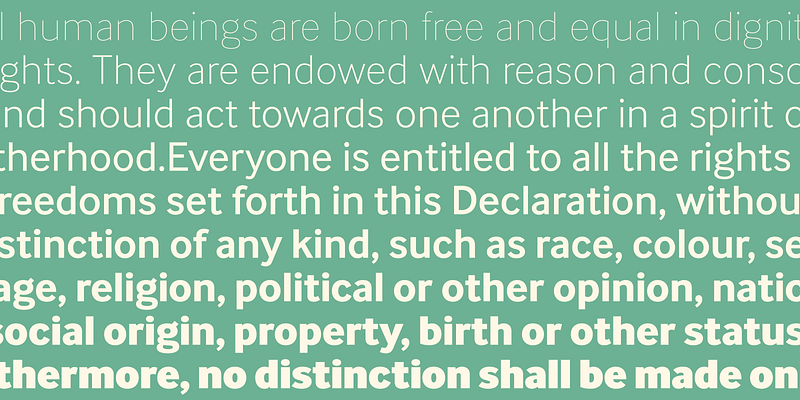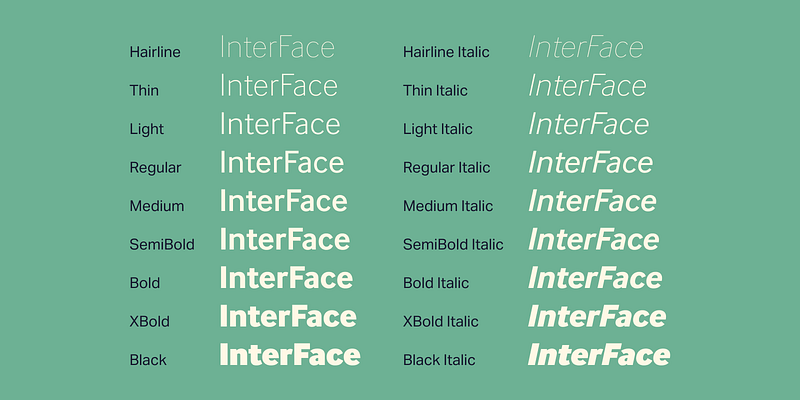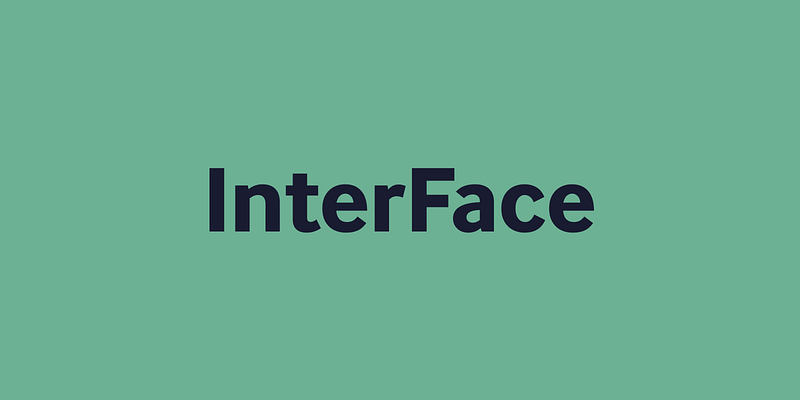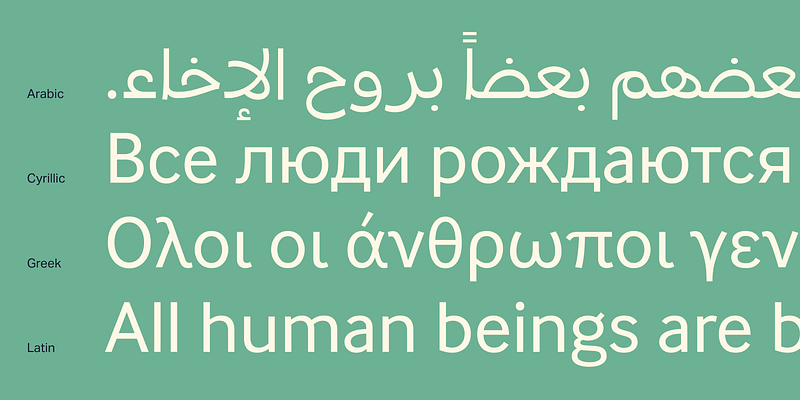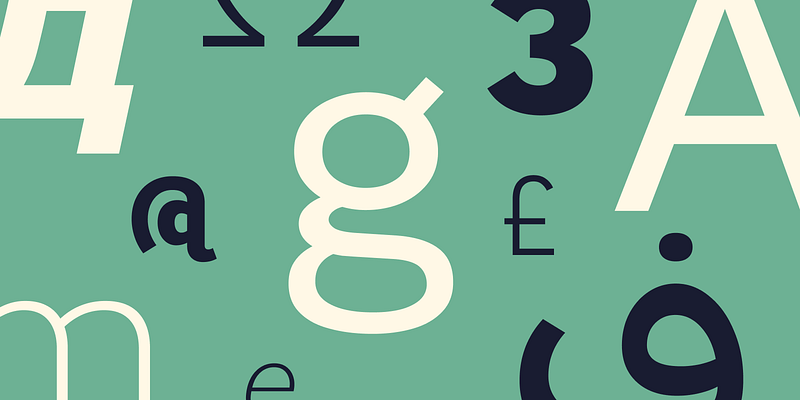
InterFace was inspired by sans serif fonts of the 19th Century, subtly blended with humanist details for a softer look. From screen to signage, InterFace carries any message with flawless precision.